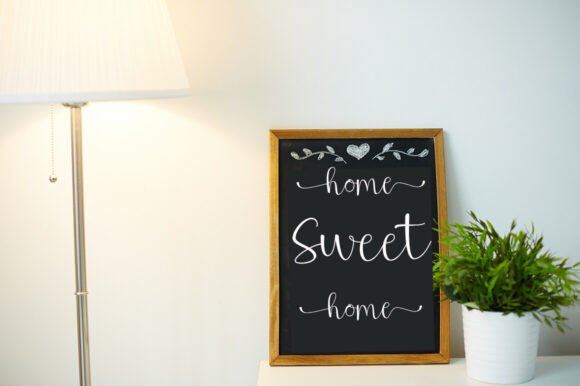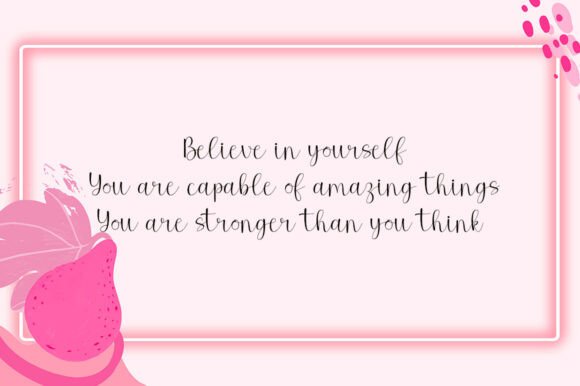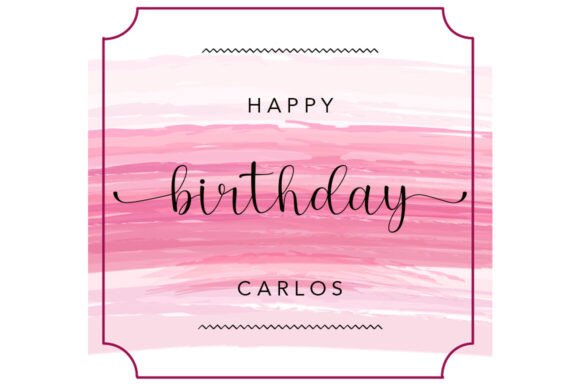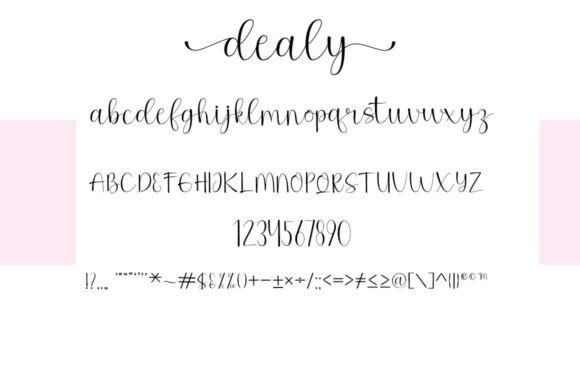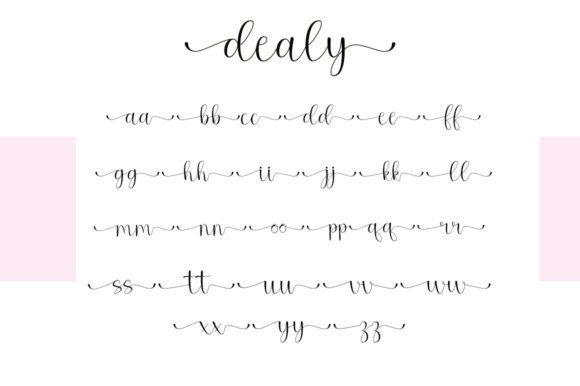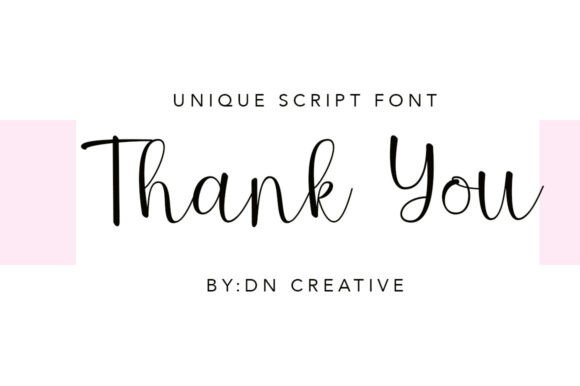
Introducing Dealy Font: Elevate Your Designs with Elegance and Sophistication
Are you a designer or crafter looking for a font that exudes style, elegance, and sophistication? Look no further than Dealy Font, a stunning handwritten font that is sure to take your designs to the next level. In this article, we’ll dive into the features and benefits of Dealy Font, and explore how it can be used to create beautiful and eye-catching designs.
A Stylish and Elegant Handwritten Font
Dealy Font is a beautifully crafted handwritten font that is perfect for adding a touch of elegance and sophistication to your designs. Its stylish and refined appearance makes it ideal for use on wedding invitations, thank you cards, quotes, greeting cards, logos, business cards, and any other design that requires a handwritten touch.
Whether you’re a professional designer or a crafty DIY enthusiast, Dealy Font is sure to impress. Its elegant and cursive script is perfect for creating beautiful and eye-catching designs that will leave a lasting impression.
One of the standout features of Dealy Font is that it is PUA (Private Use Area) encoded. This means that you can access all of the glyphs and alternates with ease, giving you complete creative control over your designs.
With Dealy Font, you can easily access a range of alternative characters, ligatures, and swashes, allowing you to customize your designs and make them truly unique. This feature is especially useful for designers and crafters who want to create bespoke designs that reflect their personal style.
Perfect for a Range of Design Applications
Dealy Font is a versatile font that can be used for a wide range of design applications. Here are just a few examples of how you can use Dealy Font to elevate your designs:
- Wedding invitations and stationery: Dealy Font is perfect for creating beautiful and elegant wedding invitations, save-the-date cards, and other wedding stationery.
- Thank you cards and gift tags: Add a personal touch to your thank you cards and gift tags with Dealy Font’s elegant and cursive script.
- Quotes and posters: Use Dealy Font to create stunning quotes and posters that are sure to grab attention.
- Greeting cards and stationery: Dealy Font is perfect for creating beautiful and eye-catching greeting cards, journals, and other stationery.
- Logos and branding: Use Dealy Font to create a unique and memorable logo for your business or brand.
- Business cards and letterheads: Add a touch of elegance and sophistication to your business cards and letterheads with Dealy Font.
Why Choose Dealy Font?
- Elegant and sophisticated: Dealy Font is a beautifully crafted font that exudes elegance and sophistication.
- PUA encoded: With Dealy Font, you can access all of the glyphs and alternates with ease, giving you complete creative control over your designs.
- Versatile: Dealy Font can be used for a wide range of design applications, from wedding invitations to logos and branding.
| Font Name | Dealy Font |
| Author | DN Creative |
In conclusion, Dealy Font is a stunning handwritten font that is perfect for designers and crafters who want to add a touch of elegance and sophistication to their designs. With its PUA encoded feature, versatile design applications, and easy-to-use installation, Dealy Font is a must-have font for anyone looking to elevate their designs.